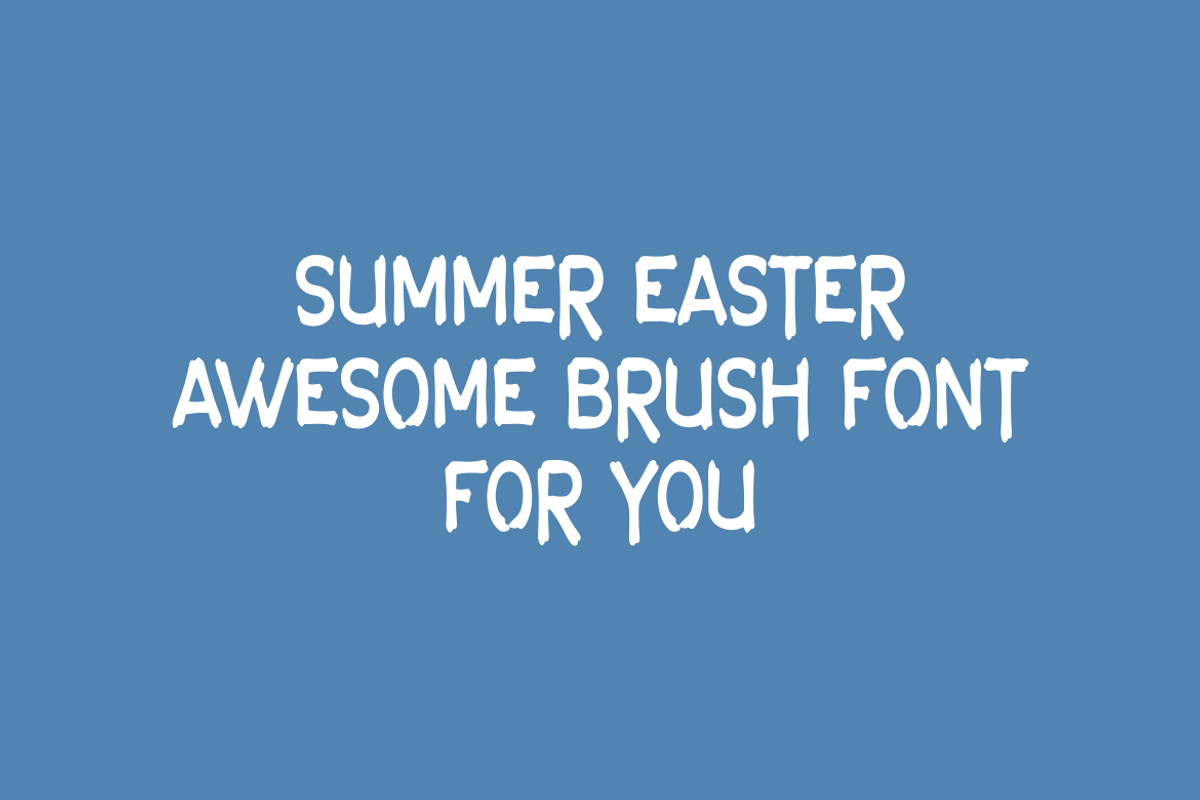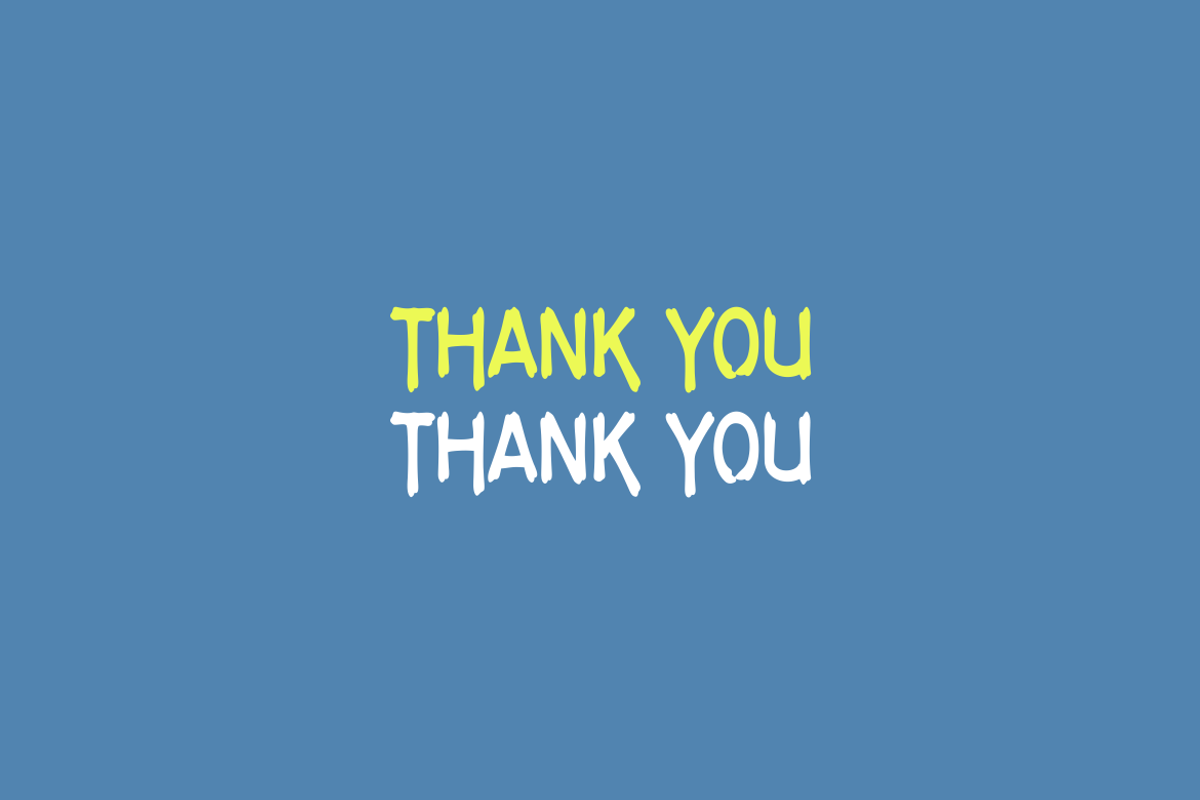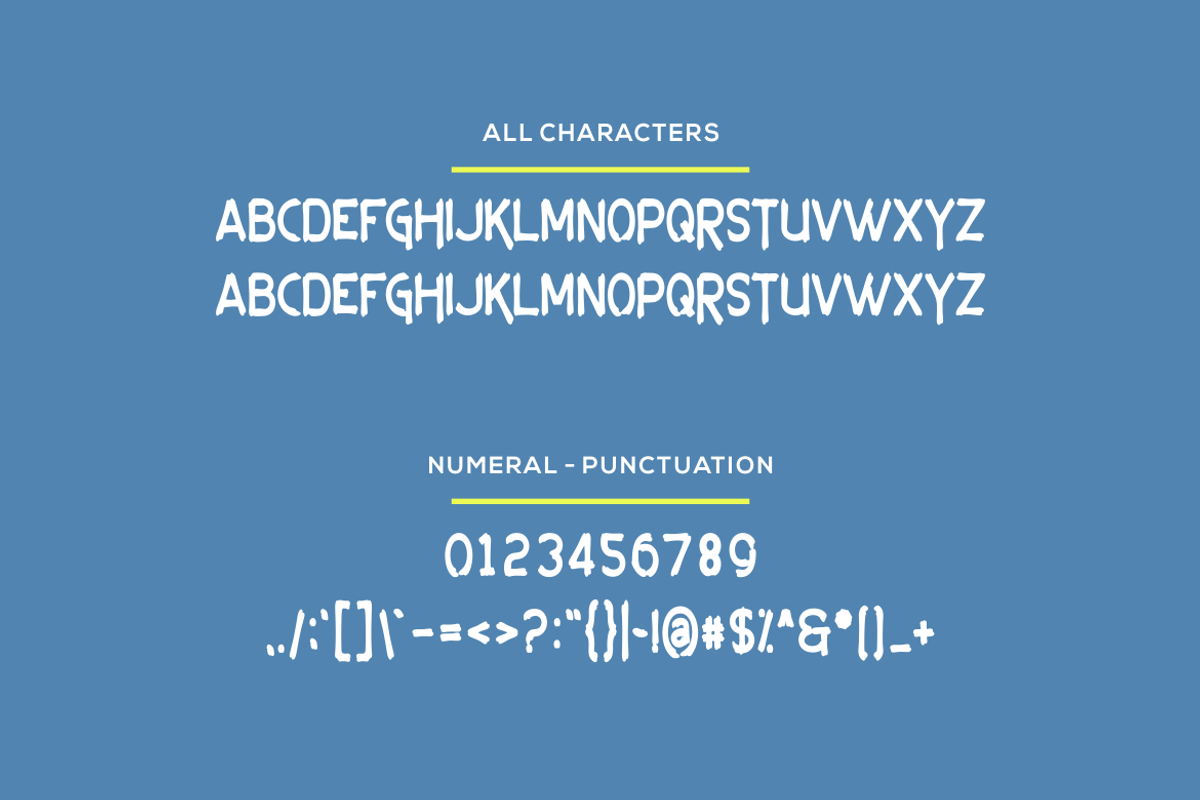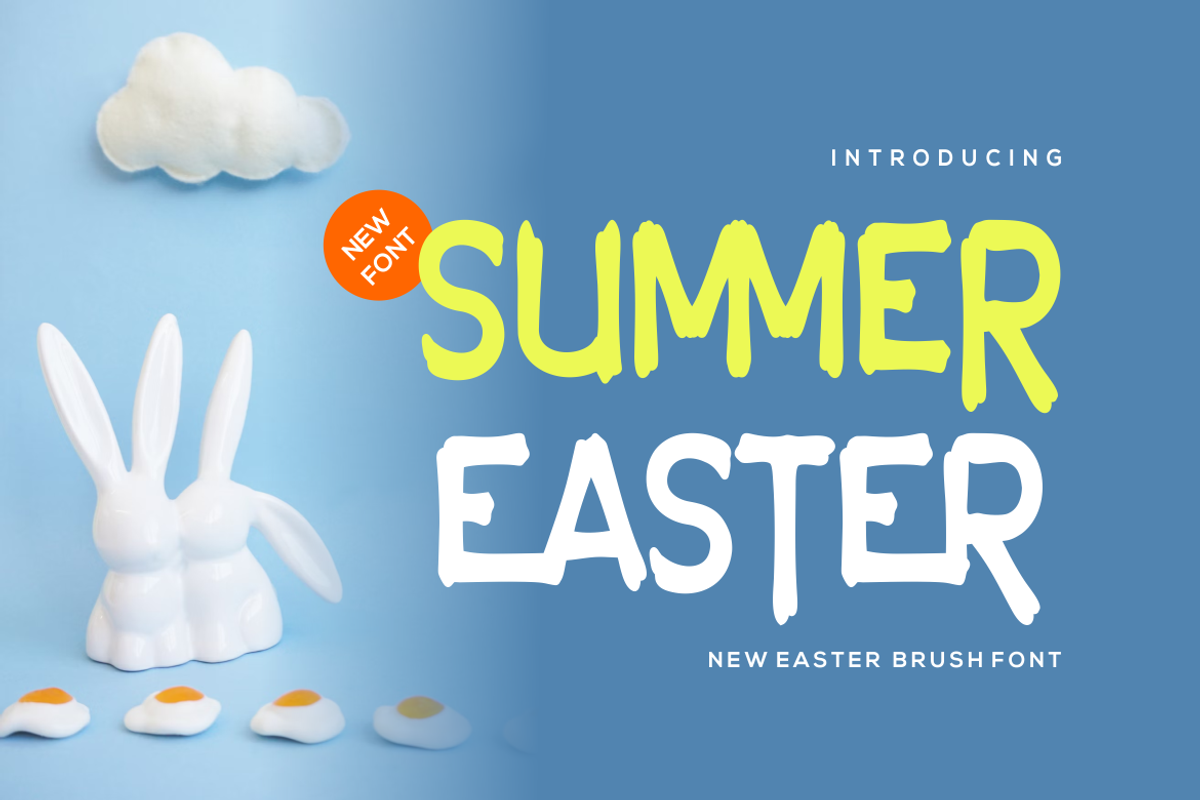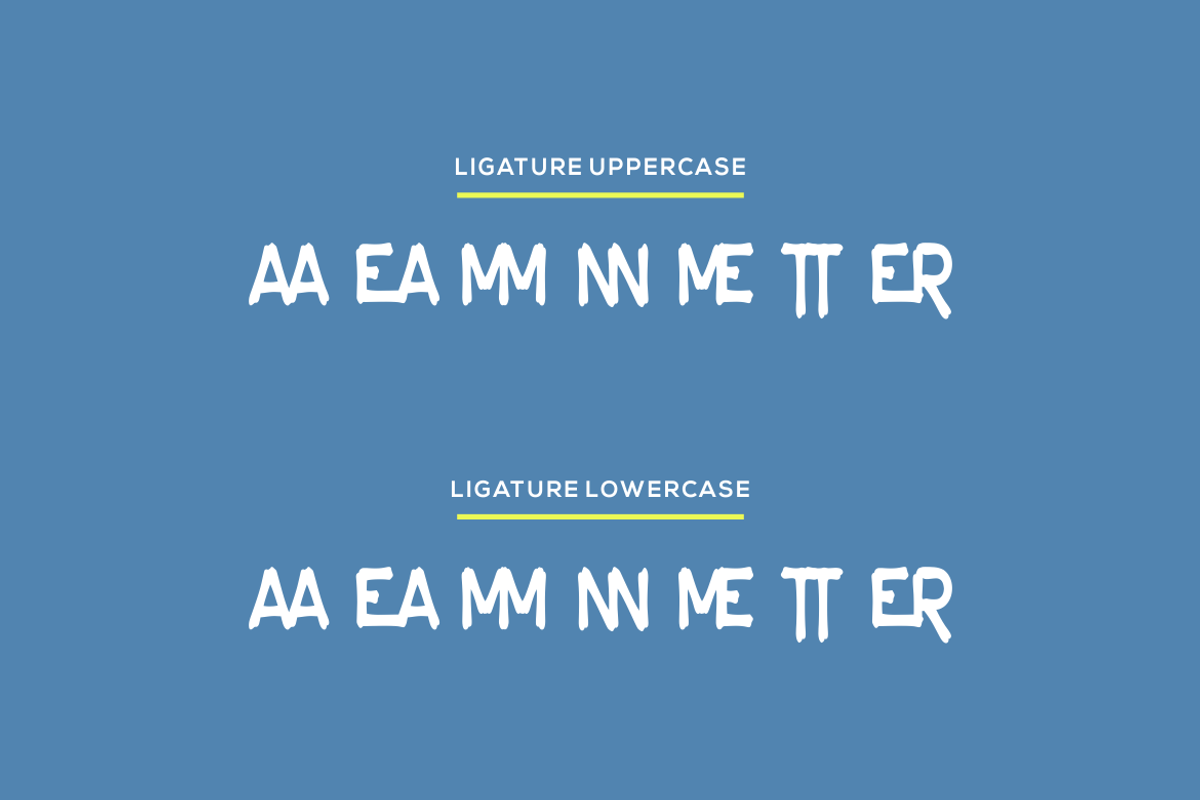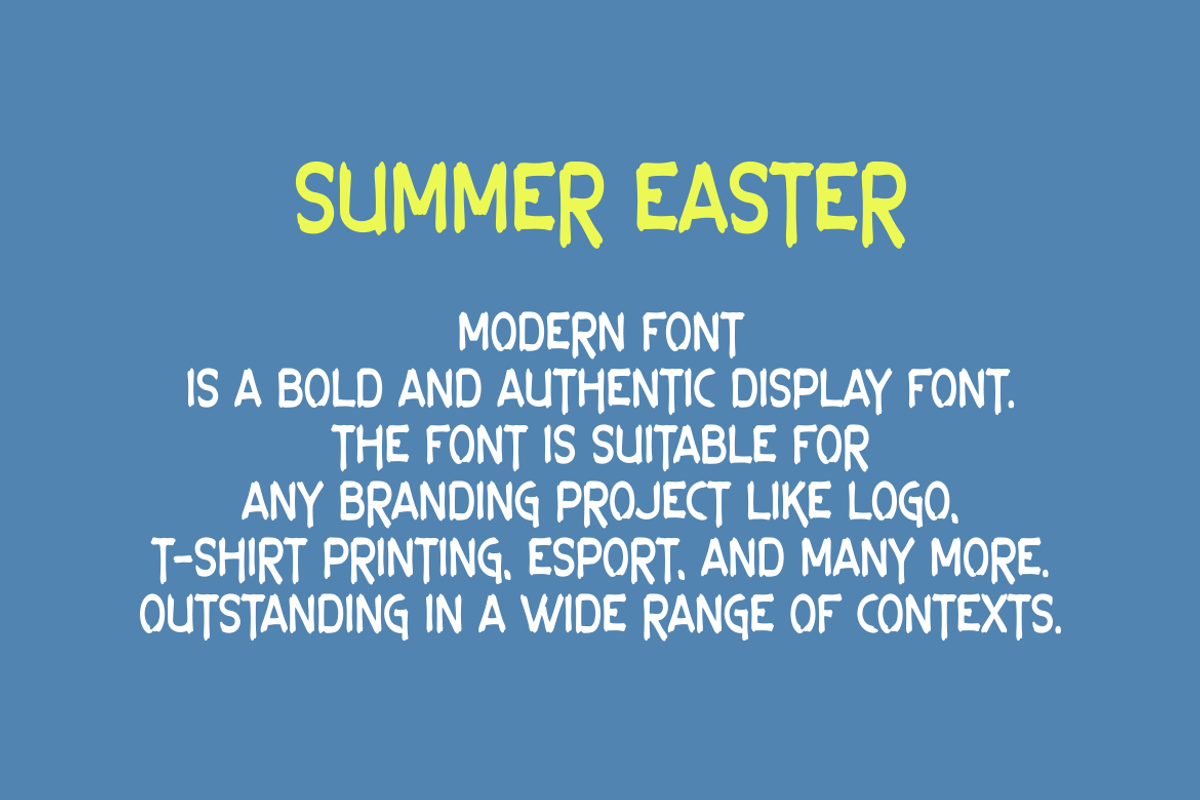
Summer Easter Font
Introducing our new product Summer Easter Font - Modern Font
Summer Easter Font- Modern Font is a bold and authentic display font. The font is suitable for any branding project like logo, t-shirt printing, esport, and many more. outstanding in a wide range of contexts.
- Summer Easter Uppercase
- Summer Easter Uppercase Ligature
- Summer Easter Lowercase Ligature